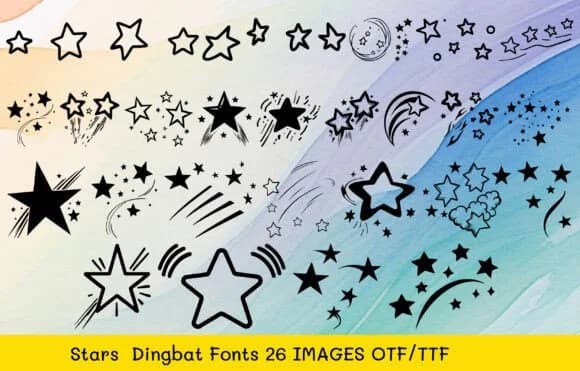
Stars by MOMAT THIRTYONE is a celestial dingbat font where each of the 26 letters transforms into a unique star-inspired character. This set works beautifully for cosmic greeting cards, galaxy-themed scrapbooking layouts, starry gift tags, space-themed nursery decals, and custom wall sticker designs. You get both OTF and TTF file formats, making it compatible across design software and devices. Each character carries a whimsical, otherworldly quality that brings genuine sparkle to both digital work and print projects. The designs feel hand-crafted in the best way, with enough variety that you won't tire of them across different layouts and applications.
This font shines especially well when you're building out stationery suites with a cosmic theme or creating custom graphics where celestial elements matter to your overall vision. Every letter pulls its weight as a standalone design element, so you can use individual characters to accent larger compositions or scatter them across pages and digital spaces for visual impact. The set's thoughtful execution means you're not just getting filler symbols; each one feels intentional and purposeful in how it sits on a page. The dingbats capture that delicate balance between decorative and usable.
Stars Font is a versatile dingbats font that works for both headings and body text. Pair it with a contrasting sans-serif or serif font to add visual interest and a clear distinction between titles and body copy.